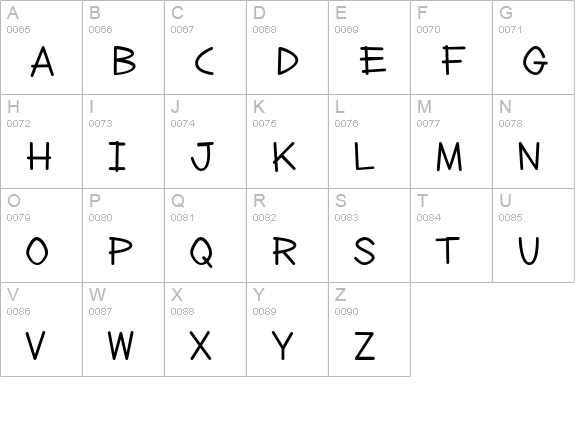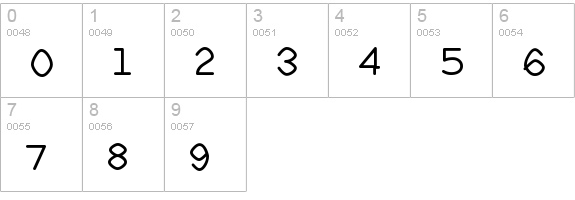
Clever Duke BTN Smooth Font Details
Clever Duke BTN Smooth font is a sophisticated and elegant typeface that exudes intelligence and charm. With its sleek and modern design, this font is perfect for adding a touch of sophistication to your projects. The smooth curves and clean lines of Clever Duke BTN Smooth make it a versatile choice for a wide range of design applications, from branding to editorial design. This font is not only visually appealing but also highly legible, making it a practical choice for both print and digital media. Whether you're designing a logo, creating a poster, or crafting a website, Clever Duke BTN Smooth will help you achieve a polished and professional look. Best of all, Clever Duke BTN Smooth font is available for free download at FontsMarket.com. This means you can easily access this high-quality typeface and use it in your projects without any cost. Don't miss out on the opportunity to enhance your designs with the stylish and sophisticated Clever Duke BTN Smooth font today!